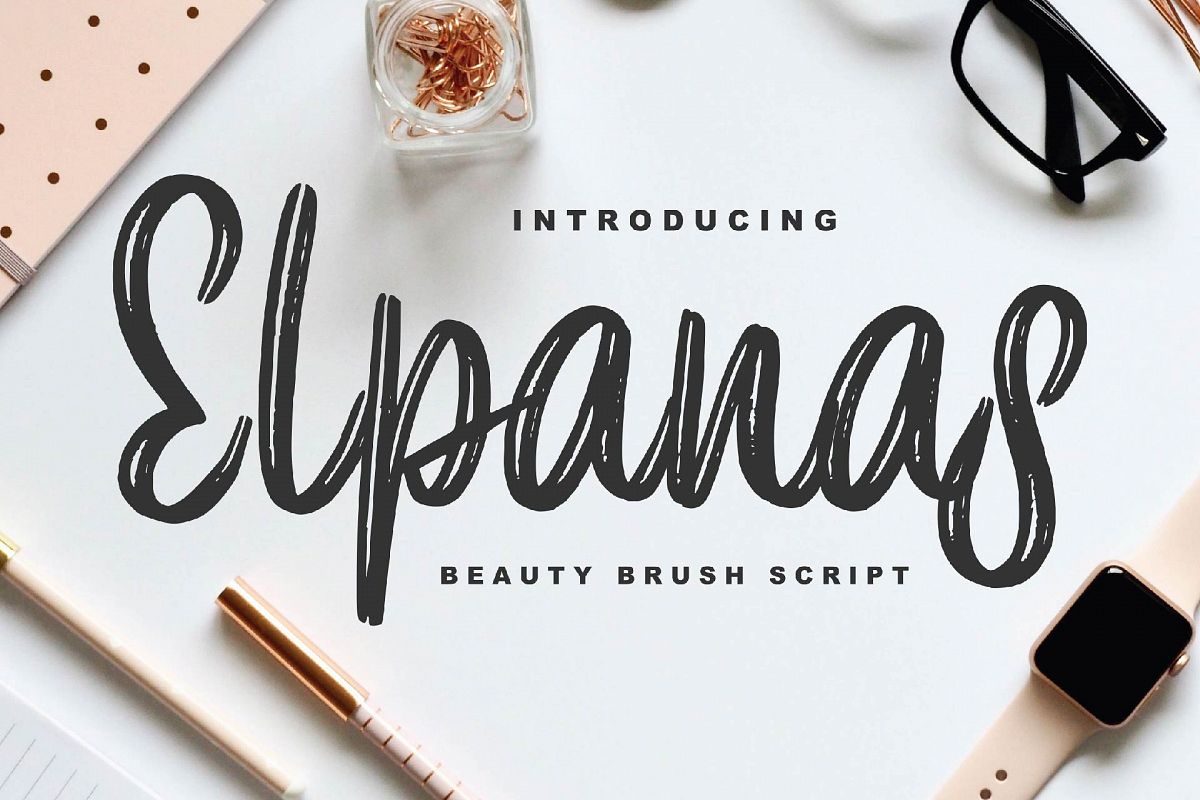
Elpanas - Beauty Brush Script
Elpanas
Elpanas - Beauty Brush Script with a calligraphy style, So beautiful on invitation like greeting cards, branding materials, business cards, quotes, posters, and more!
The alternative characters were divided into several features such as Stylistic Sets, Stylistic Alternates, Contextual Alternate, SWASH and Ligature.
• Alternates and Ligatures
• Fonts include Multilingual Support